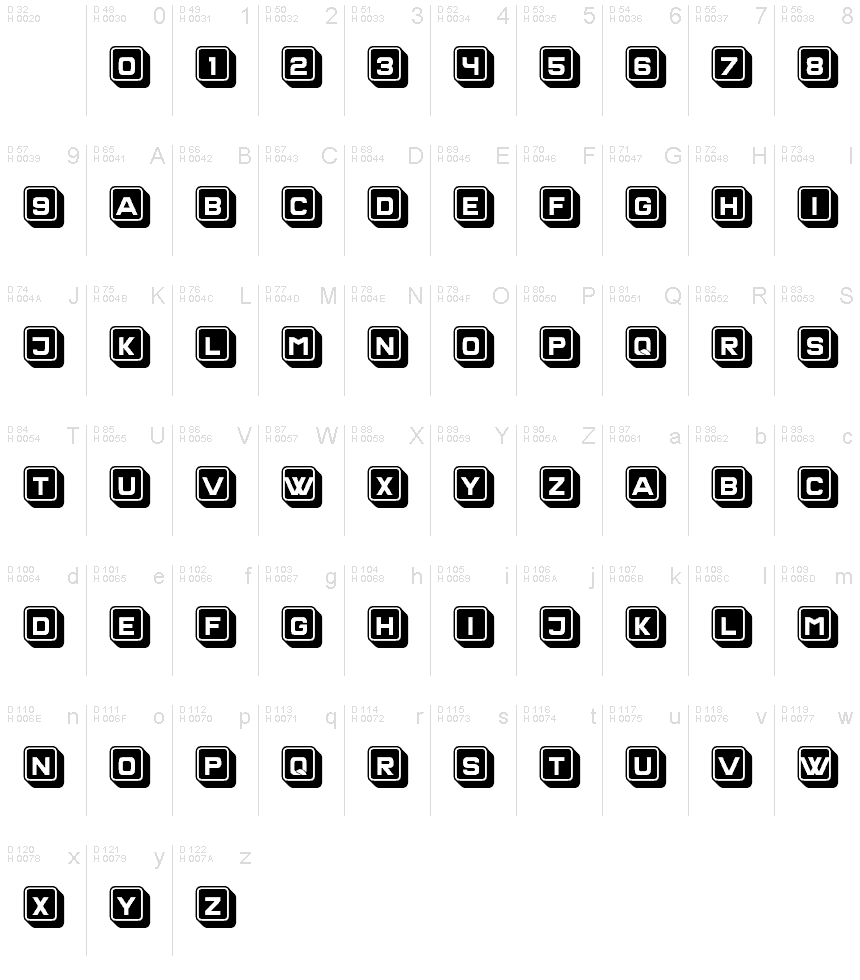
Olivetti Filled
Olivetti Filled font by Vladimir Nikolic is an expanded display font featuring a decorative 3D style and modular geometry. Its strong presence and industrial feel can represent itself in typography centered designs catching the viewer’s attention instantly. Inspired by historic printing technology, Olivetti is great for readapting famous brands’ retro designs or creating your own.